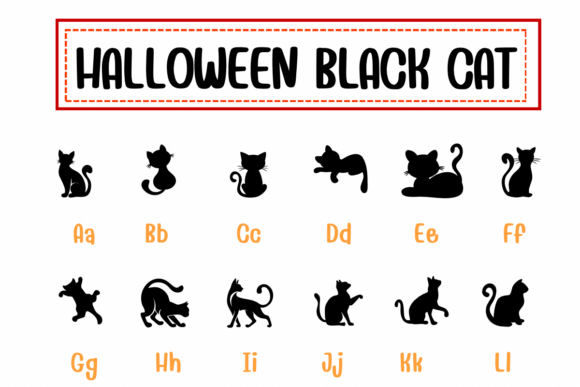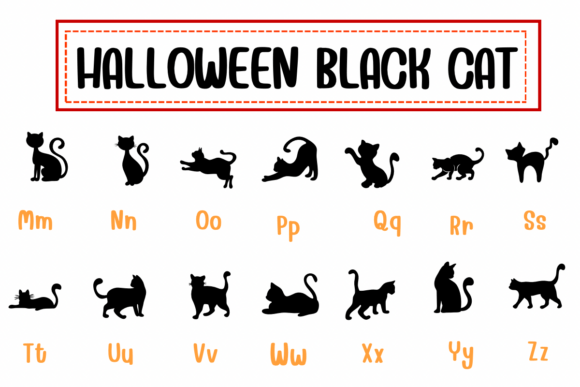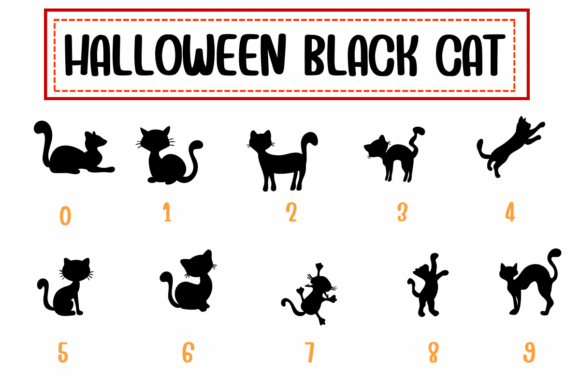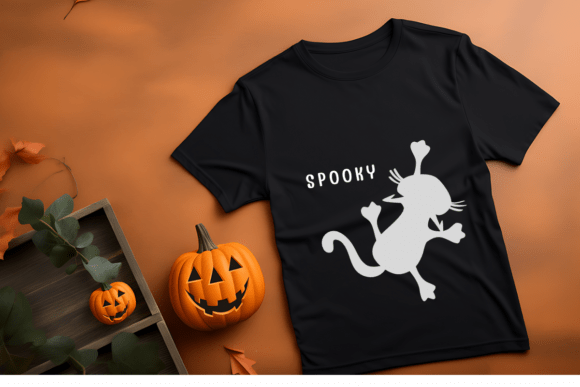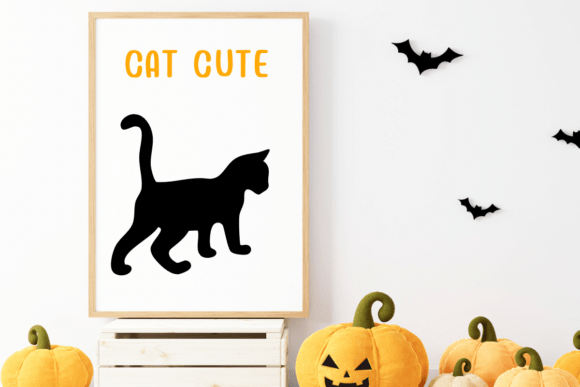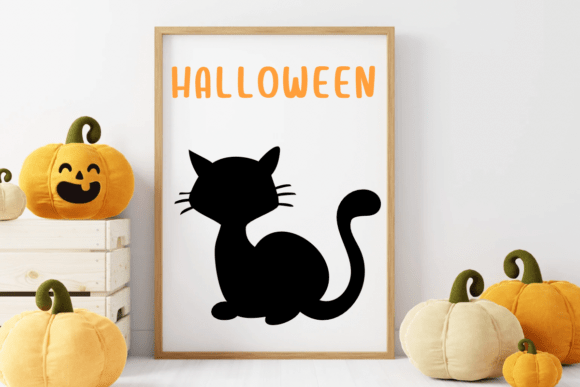
Halloween Black Cat Font: Add a Touch of Feline Mystery to Your Spooky Projects
As the spookiest time of the year approaches, designers and crafters are on the lookout for the perfect elements to add a touch of eerie elegance to their Halloween projects. If you’re looking for a font that embodies the playful and mysterious spirit of Halloween, look no further than the Halloween Black Cat Font. This charming dingbat font is filled with a variety of black cat silhouettes that are sure to bring a smile to your face and a touch of whimsy to your designs.
What is Halloween Black Cat Font?
Halloween Black Cat Dingbats is a unique and spooky dingbat font that features a collection of playful, creepy, and whimsical black cat silhouettes. Each character key in this font gives you a different cat pose, from stretching and sitting to pouncing and prowling. With a range of adorable and eerie designs to choose from, you’re sure to find the perfect black cat silhouette to add a touch of feline mystery to your spooky projects.
Perfect for Halloween Crafts and Designs
Whether you’re a designer, crafter, or DIY enthusiast, the Halloween Black Cat Font is the perfect addition to your spooky projects. Use it to create:
- Halloween crafts: Add a touch of feline whimsy to your Halloween crafts, such as decorations, gift tags, and cards.
- Stickers: Create spooky stickers featuring adorable black cat silhouettes to add to your Halloween treats and decorations.
- Party invites: Set the mood for your Halloween party with custom invitations featuring the Halloween Black Cat Font.
- KDP pages: Add a touch of eerie elegance to your Kindle Direct Publishing (KDP) pages with this unique font.
- Apparel: Design spooky tees, hoodies, and other apparel featuring the Halloween Black Cat Font.
- Digital designs: Use this font to create spooky digital designs, such as wallpapers, social media graphics, and more.
Key Features of Halloween Black Cat Font
The Halloween Black Cat Font comes with a range of key features that make it the perfect addition to your spooky projects:
- Unique dingbat font featuring black cat silhouettes
- Multiple cat poses, including stretching, sitting, pouncing, and prowling
- Perfect for Halloween crafts, stickers, party invites, KDP pages, apparel, and digital designs
- Adorable and eerie designs to add a touch of feline mystery to your projects
- Experiment with different cat poses and designs to find the perfect one for your project
- Combine the Halloween Black Cat Font with other spooky elements, such as bats, ghosts, and jack-o-lanterns
- Use the font to create custom Halloween graphics, such as logos and icons
- Don’t be afraid to get creative and try out new and unique design ideas